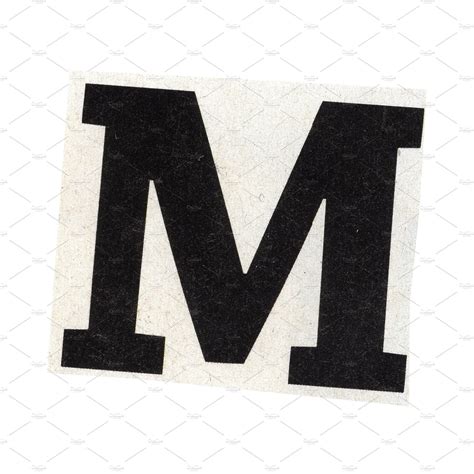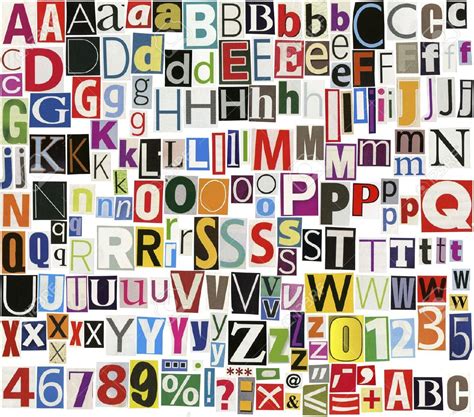
Typography plays a crucial role in the design and aesthetics of any publication, and the choice of font can significantly impact the overall look and feel of a magazine. One of the most iconic and widely recognized fonts in the publishing industry is the Magazine Letter Font. This font has been a staple in magazine design for decades, known for its elegance, readability, and versatility. Whether you're designing a high-end fashion magazine, a lifestyle publication, or a news magazine, the Magazine Letter Font can add a touch of sophistication and professionalism to your pages.
Understanding the Magazine Letter Font
The Magazine Letter Font is characterized by its clean, modern lines and timeless design. It is often used for headlines, subheadings, and body text, making it a versatile choice for various sections of a magazine. The font's design elements, such as its serifs and letter spacing, contribute to its readability and aesthetic appeal. Understanding the key features of the Magazine Letter Font can help designers make informed decisions when incorporating it into their layouts.
Key Features of the Magazine Letter Font
The Magazine Letter Font stands out due to several distinctive features:
- Serif Design: The font features serifs, which are small lines or strokes added to the ends of characters. These serifs enhance readability, especially in printed materials.
- Elegant Aesthetics: The font's design exudes elegance and sophistication, making it ideal for high-end publications.
- Versatility: It can be used for various text elements, from headlines to body text, ensuring consistency throughout the magazine.
- Readability: The font's clear and legible design makes it easy to read, even in smaller sizes.
Using the Magazine Letter Font in Magazine Design
Incorporating the Magazine Letter Font into your magazine design involves several steps. From selecting the right font size to ensuring proper spacing, each element plays a crucial role in creating a visually appealing layout. Here are some tips for effectively using the Magazine Letter Font:
Choosing the Right Font Size
The font size you choose depends on the section of the magazine and the importance of the text. For headlines, a larger font size (e.g., 24-36 points) is recommended to grab the reader's attention. For subheadings, a medium font size (e.g., 18-24 points) works well, while body text should be in a smaller size (e.g., 10-12 points) to ensure readability without overwhelming the reader.
Ensuring Proper Spacing
Proper spacing is essential for maintaining readability and visual appeal. The line height (leading) should be set to ensure that lines of text are not too close together, which can make the text difficult to read. A general rule of thumb is to set the line height to 120-145% of the font size. Additionally, adjust the letter spacing (tracking) to ensure that characters are evenly spaced and do not appear cramped.
Pairing with Other Fonts
While the Magazine Letter Font is versatile, pairing it with complementary fonts can enhance the overall design. For body text, consider using a sans-serif font that complements the serif design of the Magazine Letter Font. This contrast can create a visually interesting layout while maintaining readability. Some popular sans-serif fonts that pair well with the Magazine Letter Font include Helvetica, Arial, and Futura.
Designing with the Magazine Letter Font
Designing a magazine with the Magazine Letter Font involves more than just selecting the font; it requires a thoughtful approach to layout, color, and imagery. Here are some design tips to help you create a stunning magazine using the Magazine Letter Font:
Creating a Consistent Layout
A consistent layout ensures that the magazine has a cohesive look and feel. Use the Magazine Letter Font for all headlines and subheadings to maintain consistency throughout the publication. Additionally, establish a grid system to organize text and images, ensuring a balanced and visually appealing layout.
Choosing the Right Colors
Color plays a significant role in the overall aesthetic of a magazine. When using the Magazine Letter Font, choose colors that complement the font's elegant design. Neutral colors like black, white, and gray are classic choices that work well with the font. For a more vibrant look, consider using accent colors that contrast with the text, such as deep blues, rich greens, or bold reds.
Incorporating Imagery
High-quality imagery can enhance the visual appeal of a magazine and complement the Magazine Letter Font. Choose images that are relevant to the content and have a high resolution to ensure clarity and sharpness. Place images strategically within the layout to create visual interest and break up text-heavy sections.
Examples of Magazines Using the Magazine Letter Font
Many renowned magazines have utilized the Magazine Letter Font to create visually stunning and readable publications. Here are a few examples:
| Magazine Name | Publication Type | Notable Features |